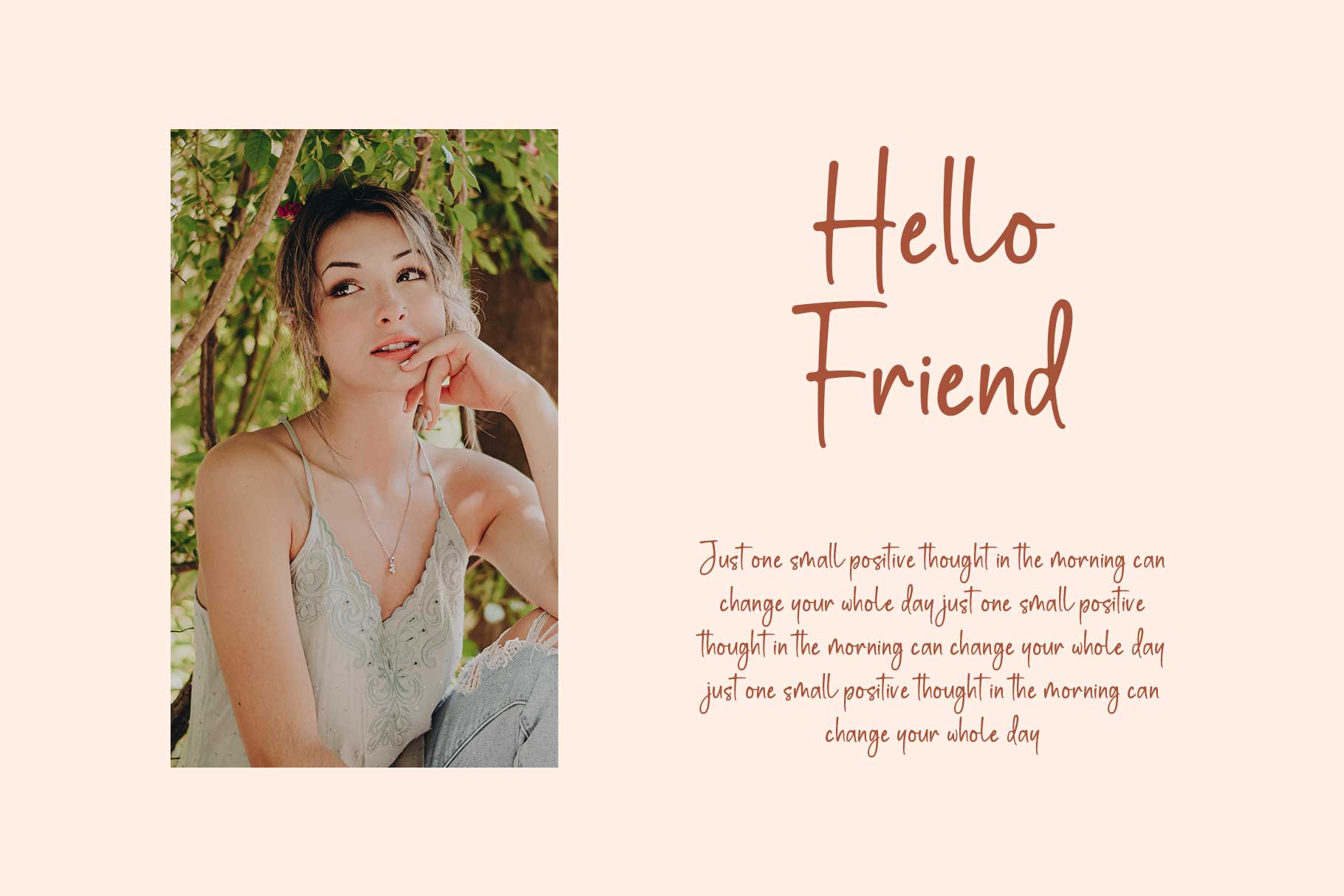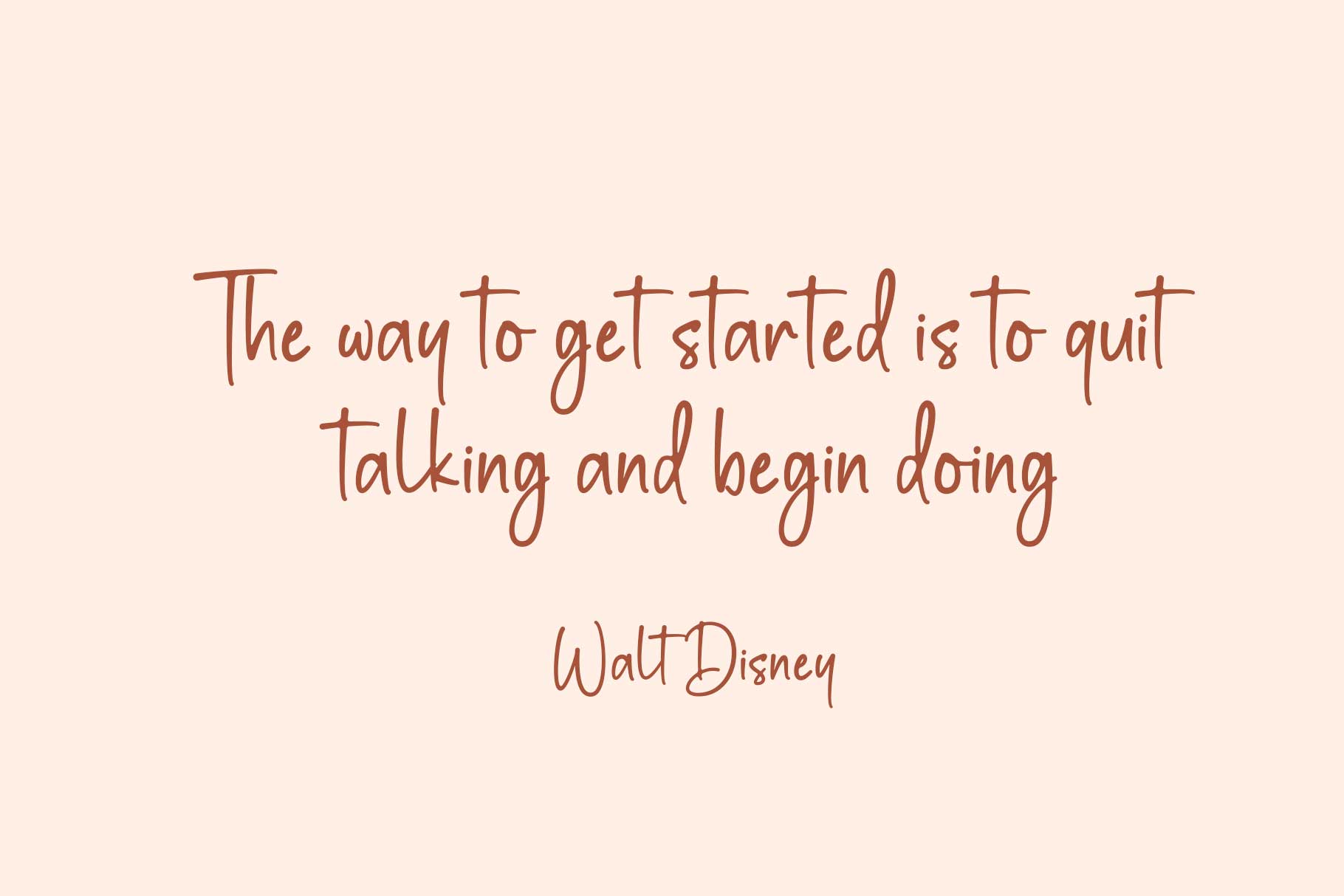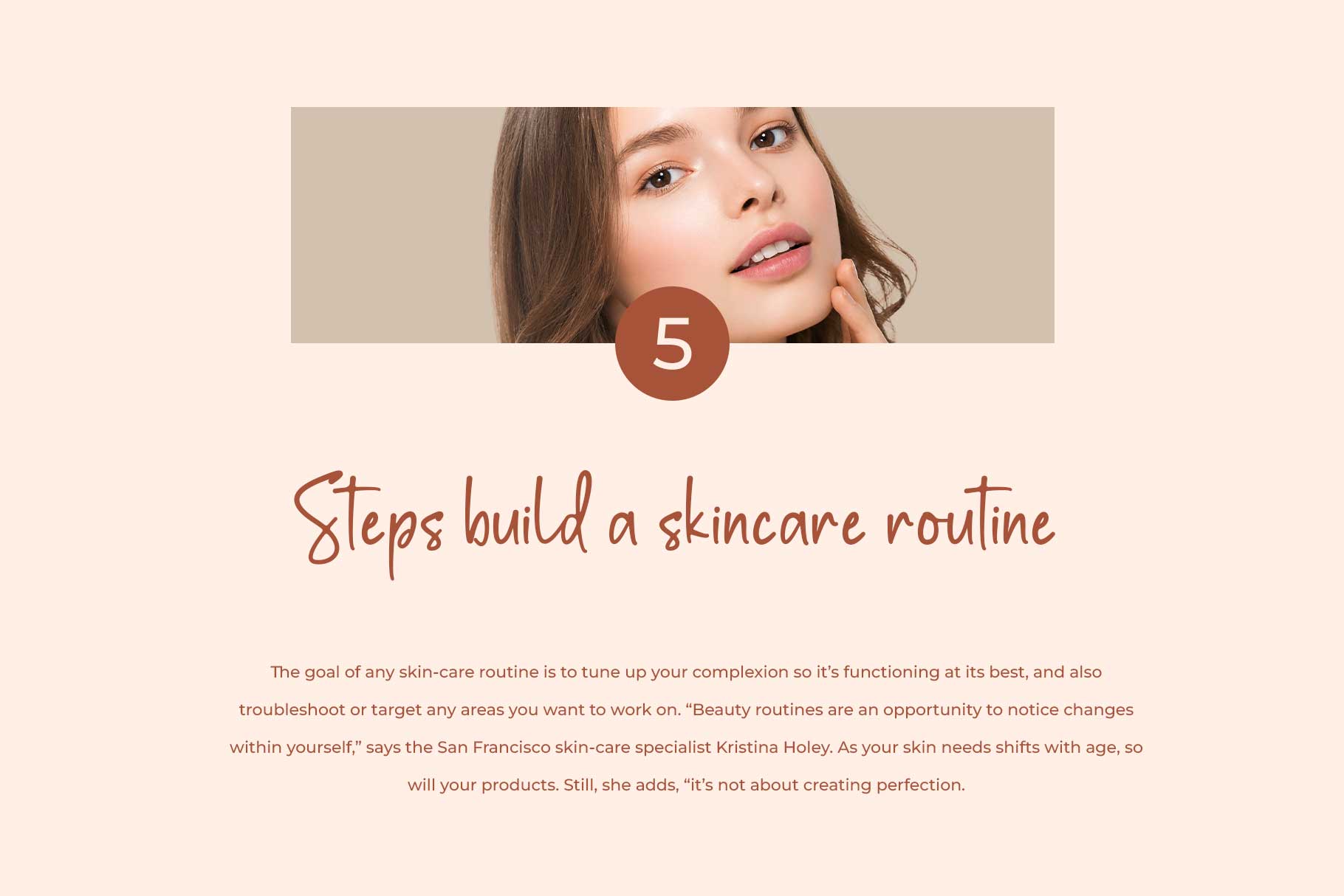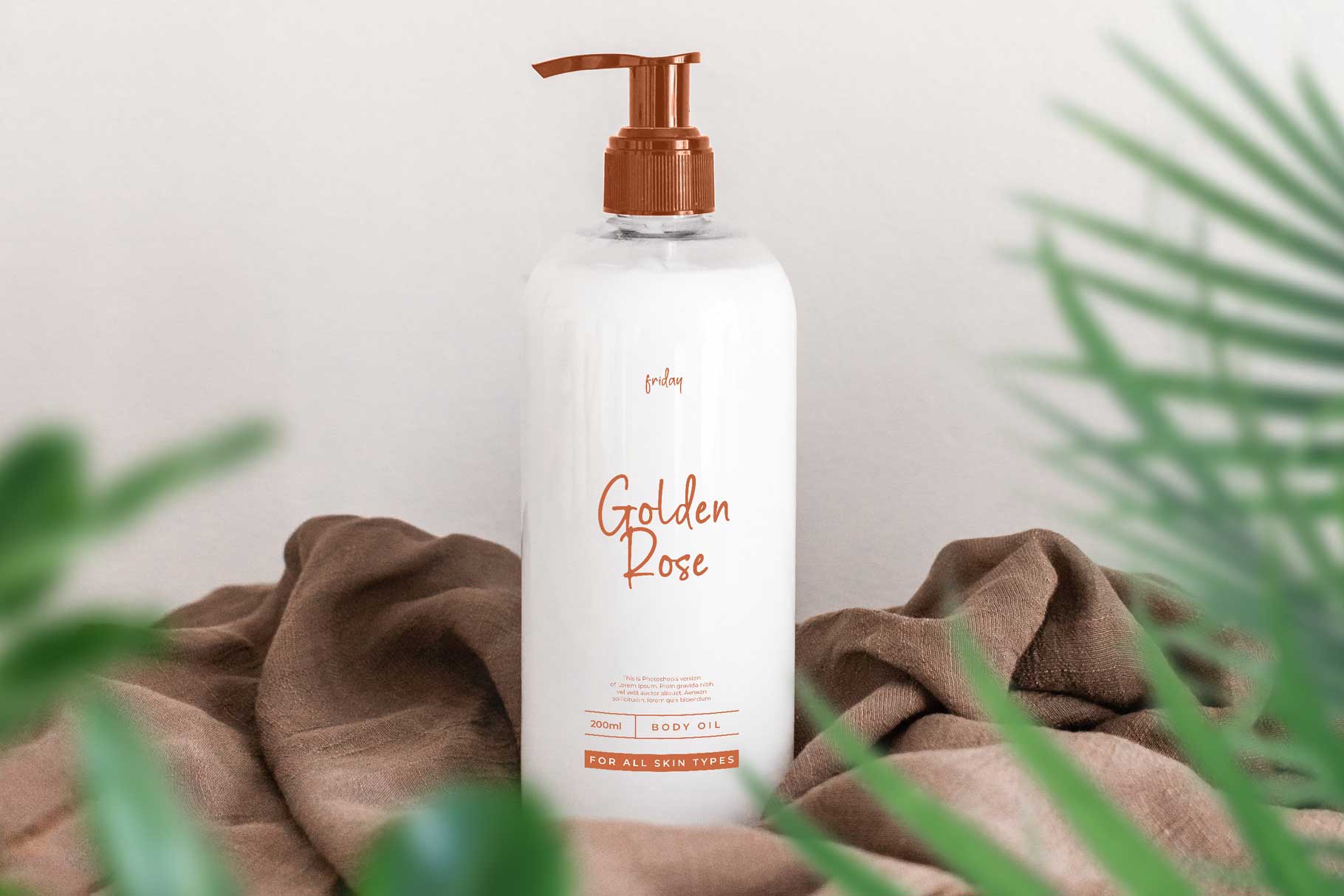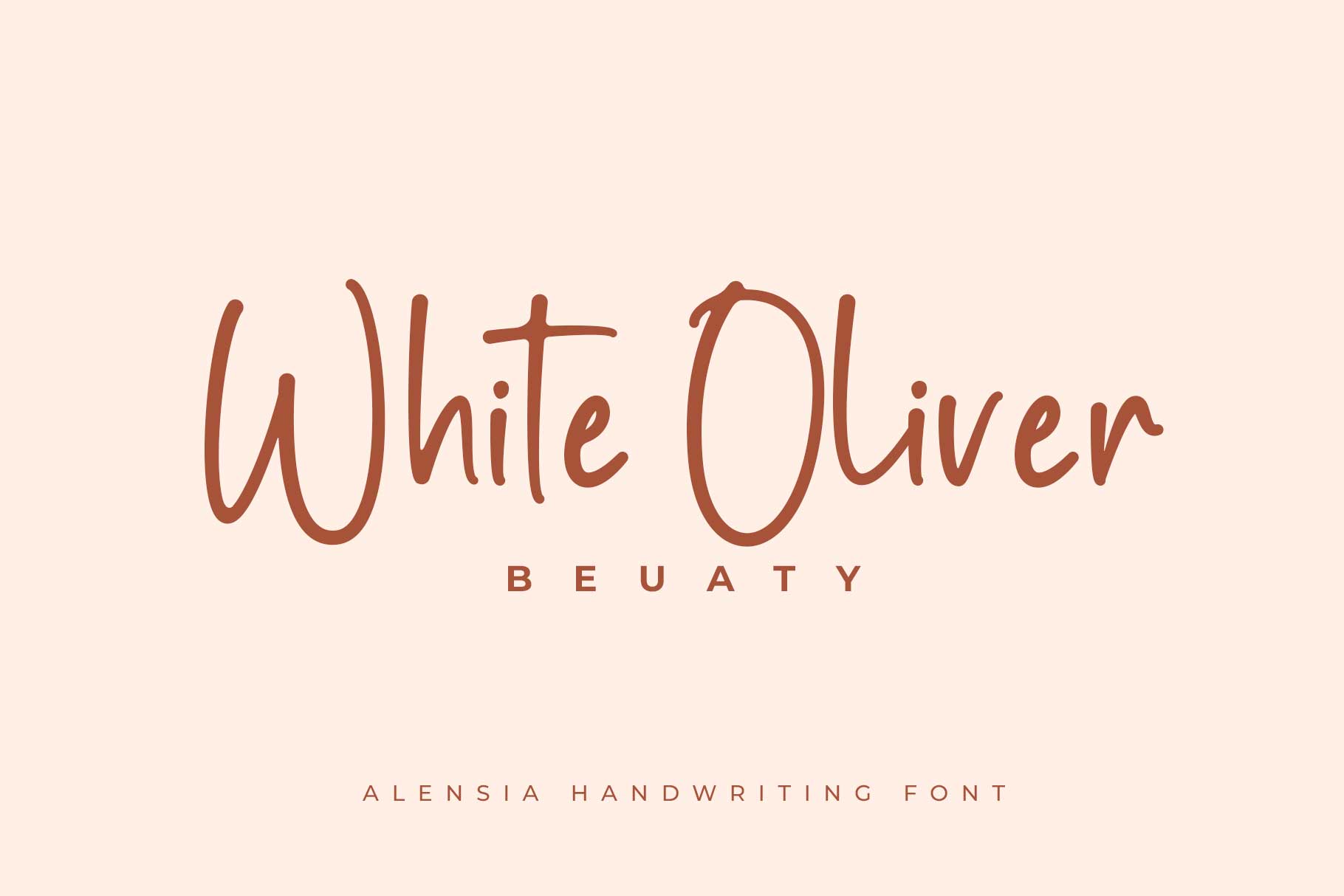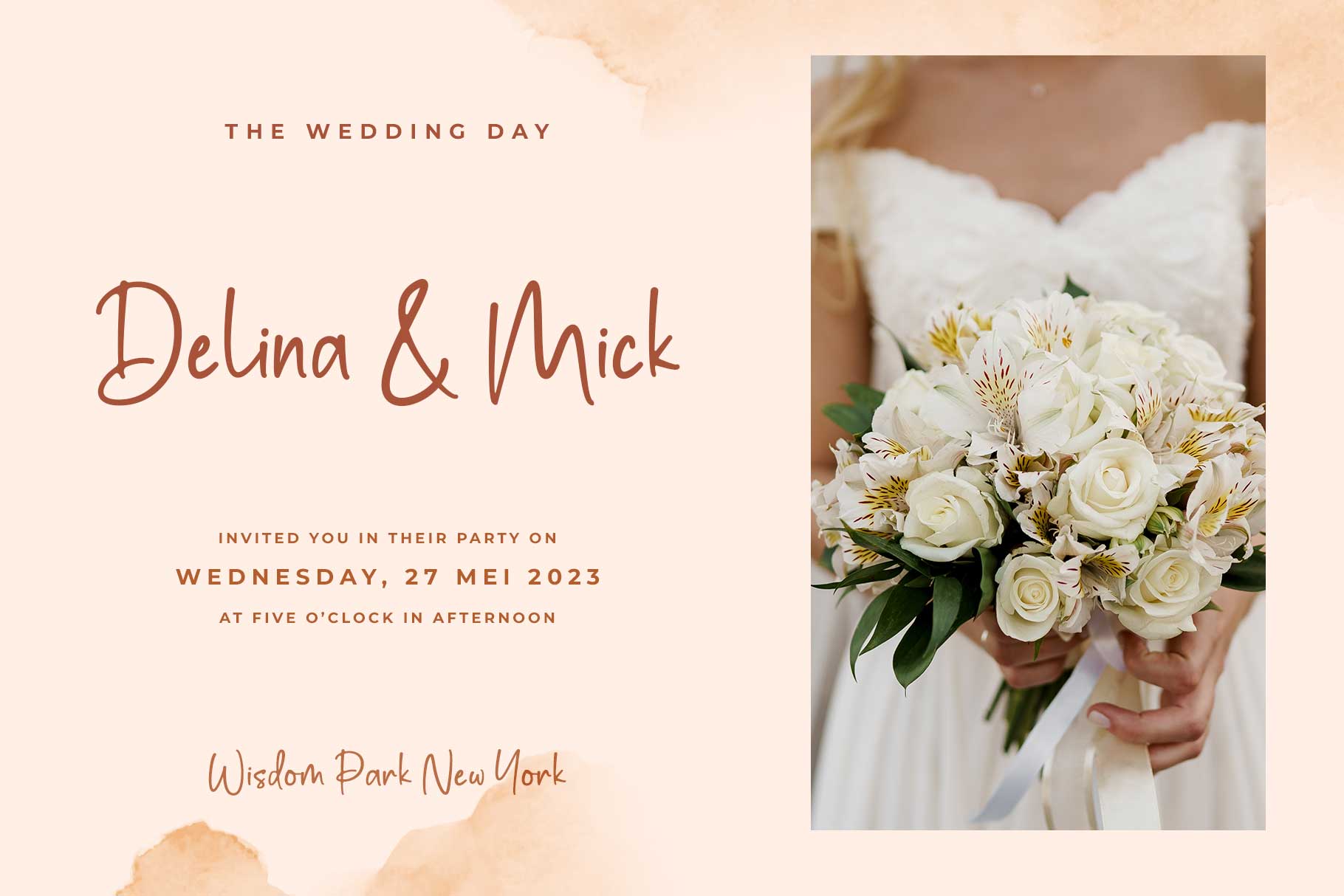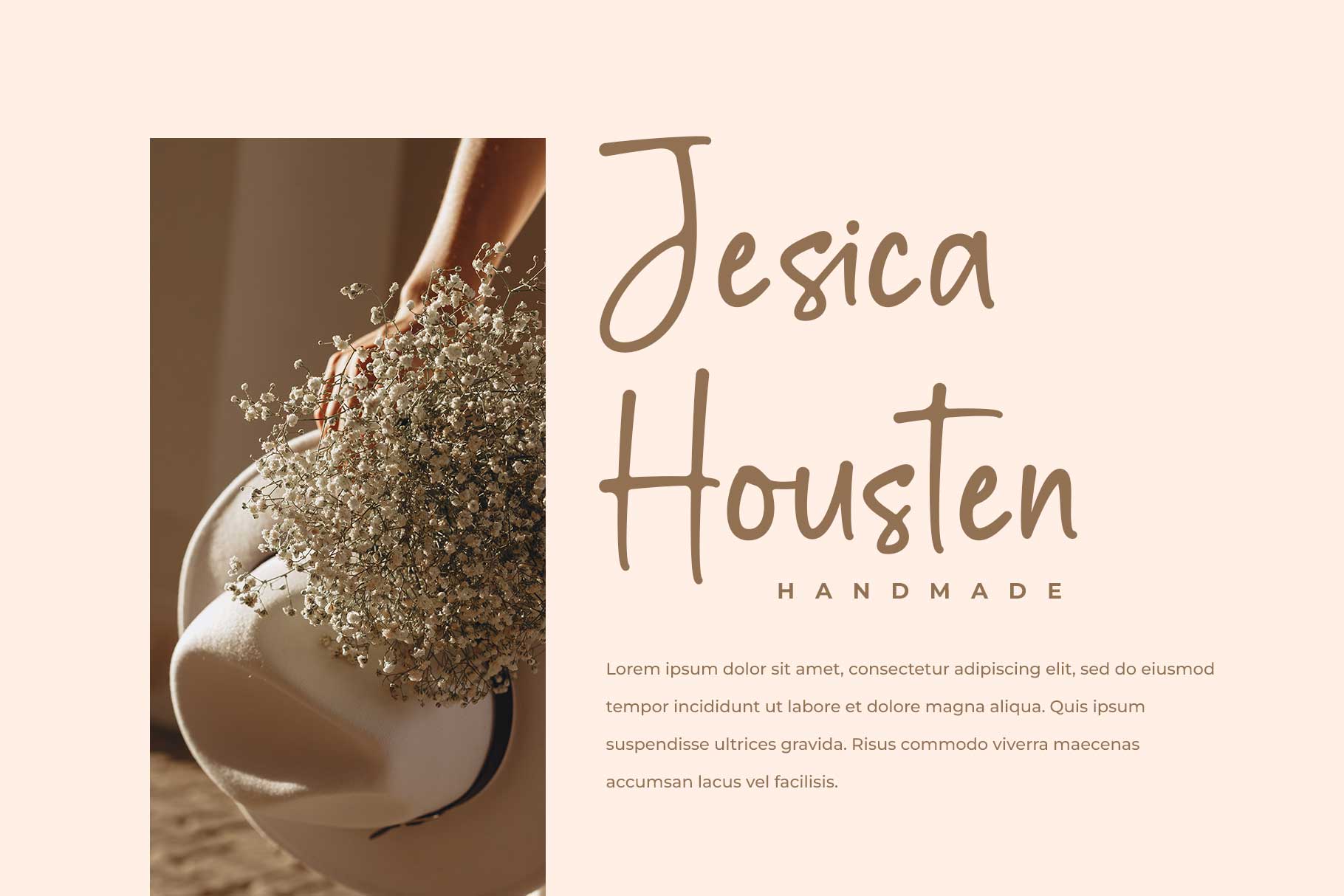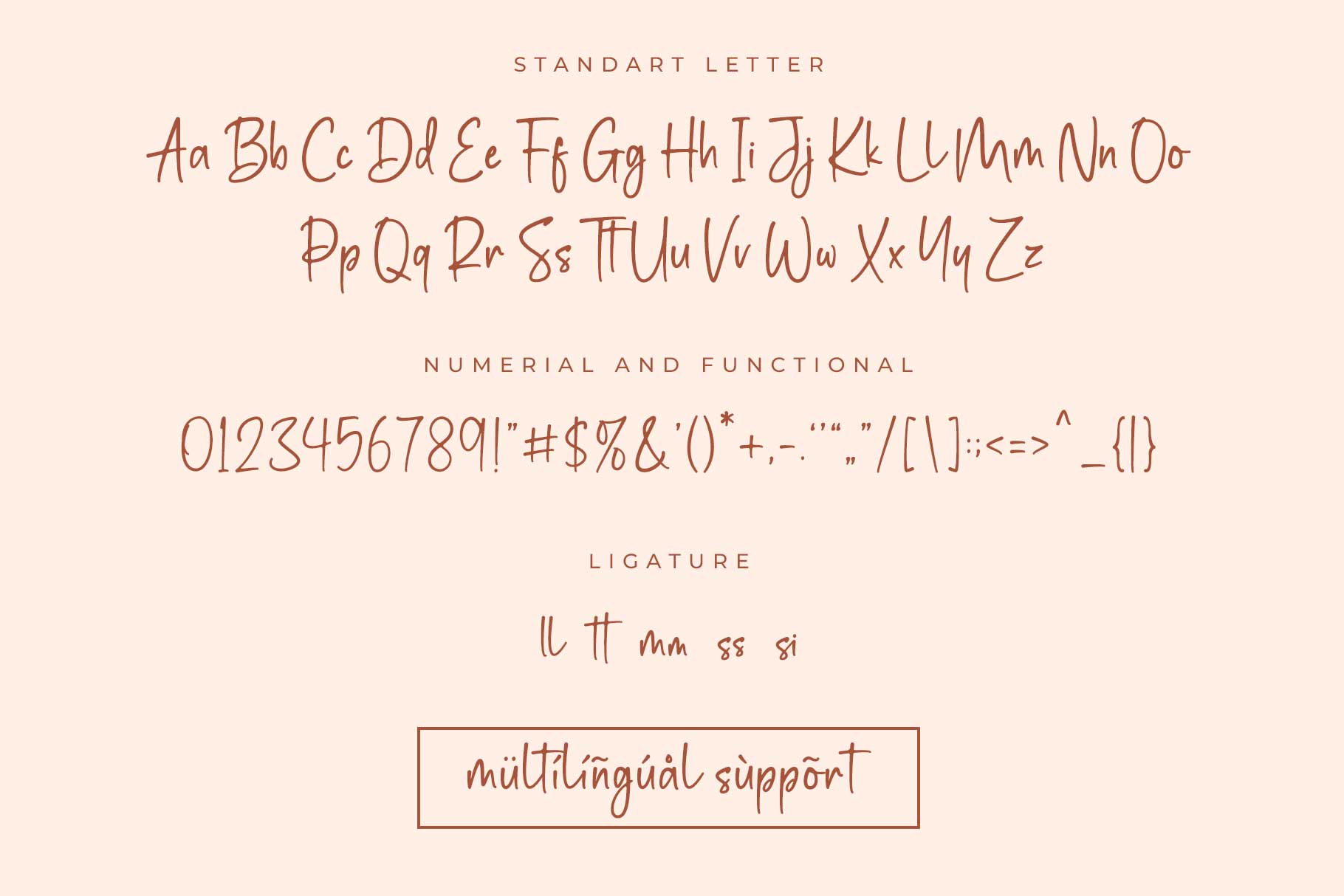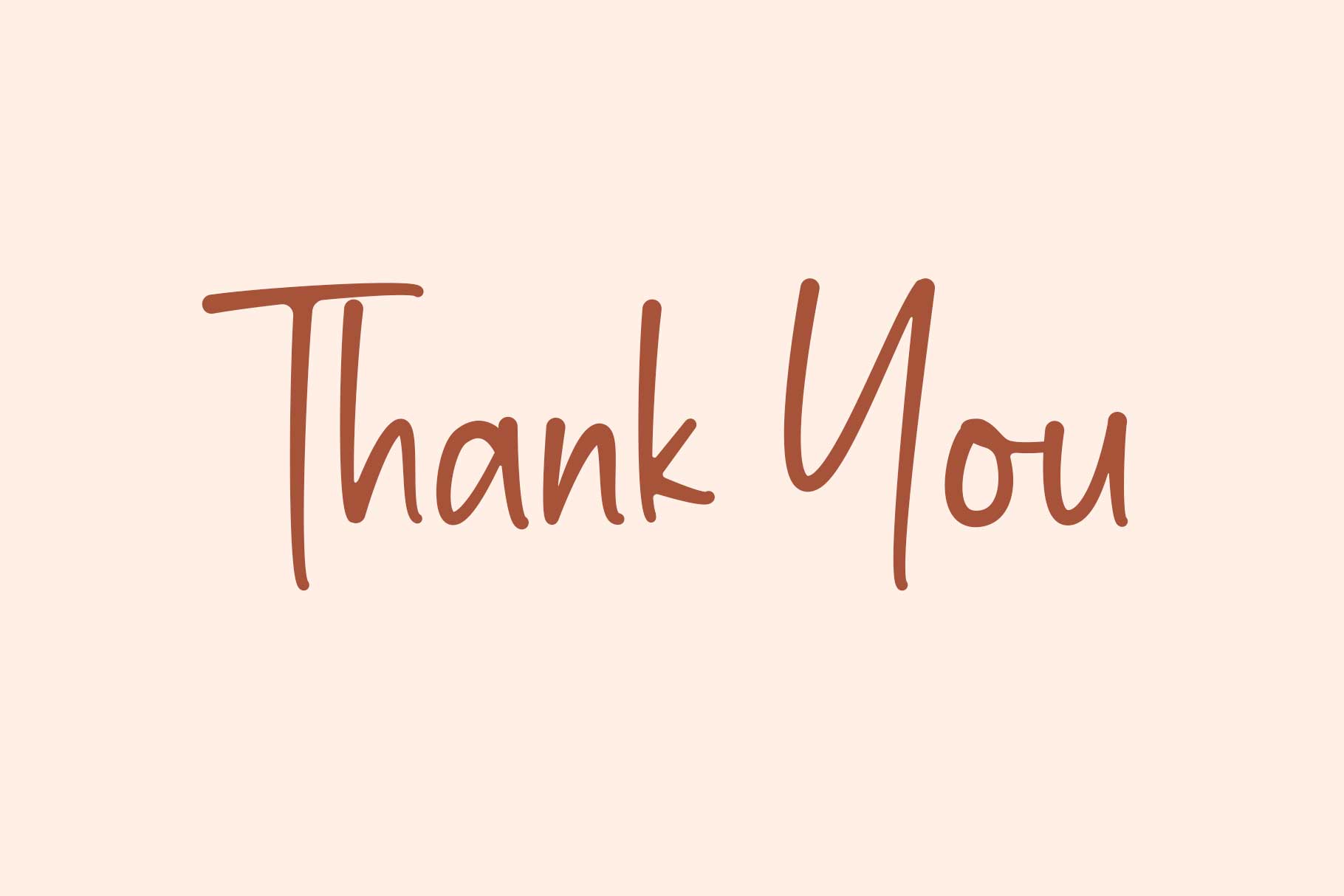
Alensia Handwritten Font
Alensia is natural display handwritten font, we keep this font looks modern, premium, readable, stylish, catchy and easy to use.
Alensia is the great choice for watermark on photography, signature or signature logo design, quotes, album cover, magazine, business card and many other design project. Alensia here to make your work to high level!!!
• Ligature and Alternate